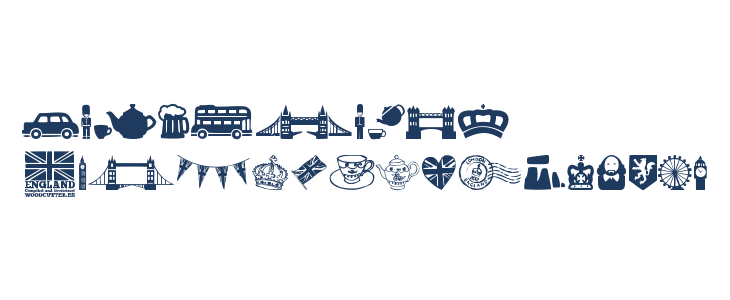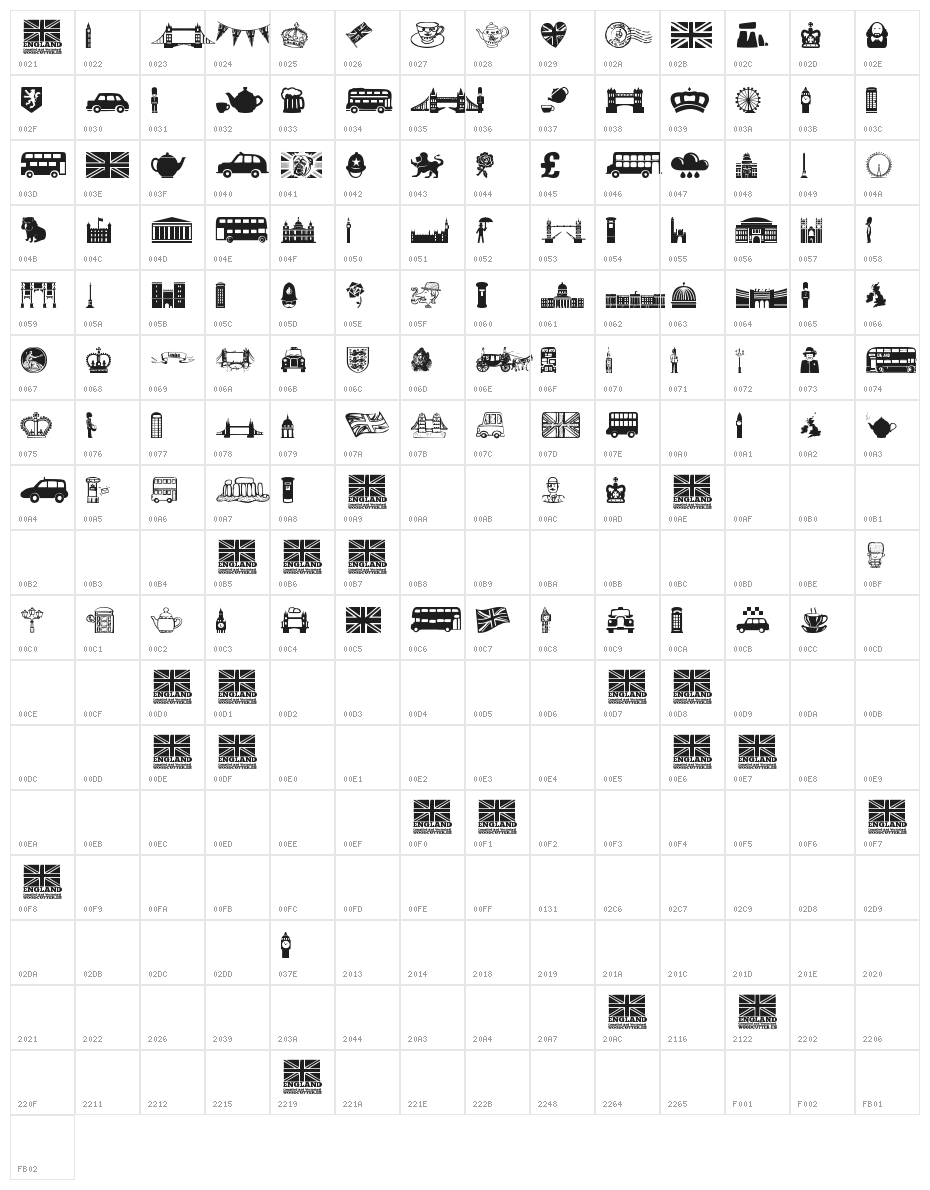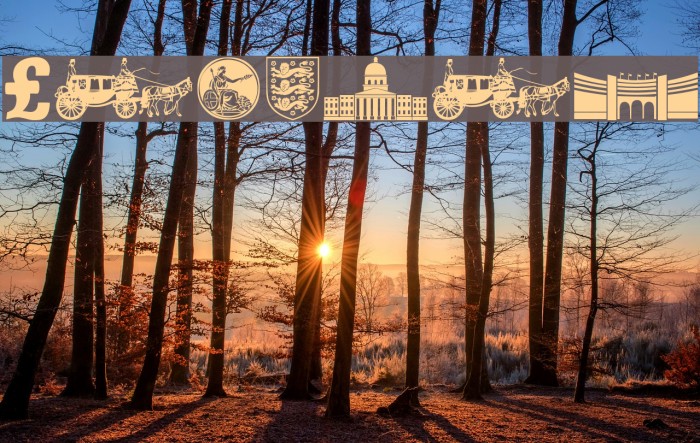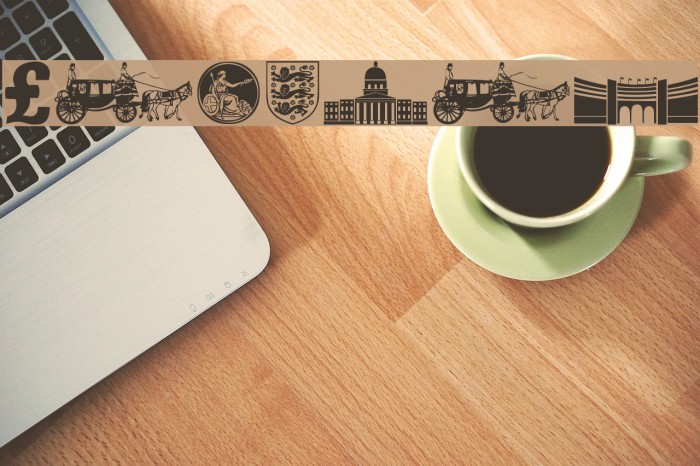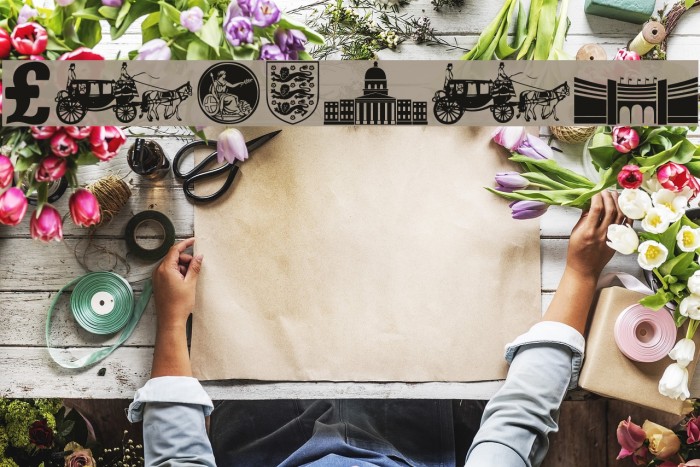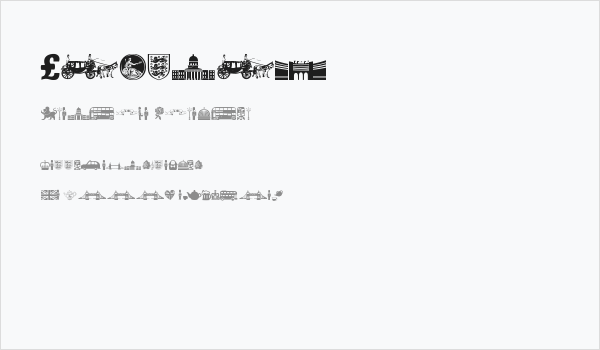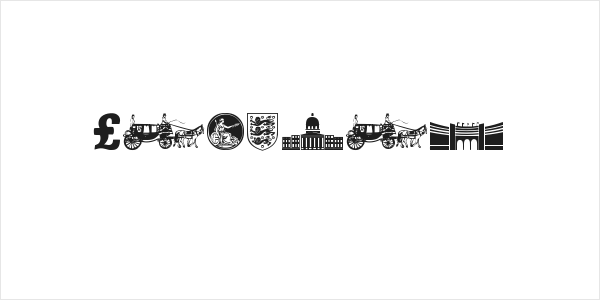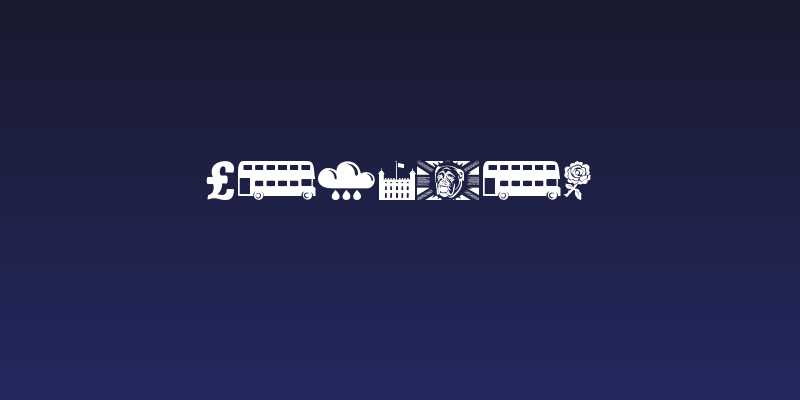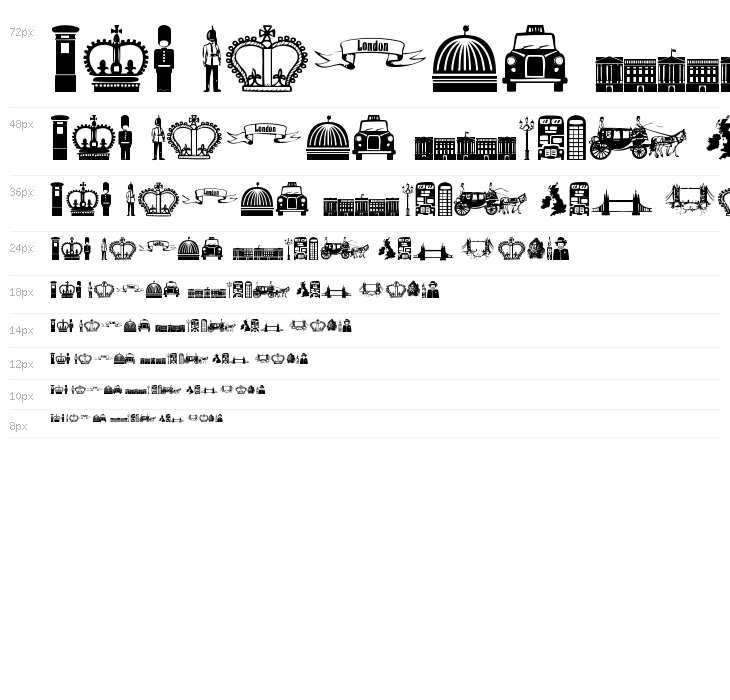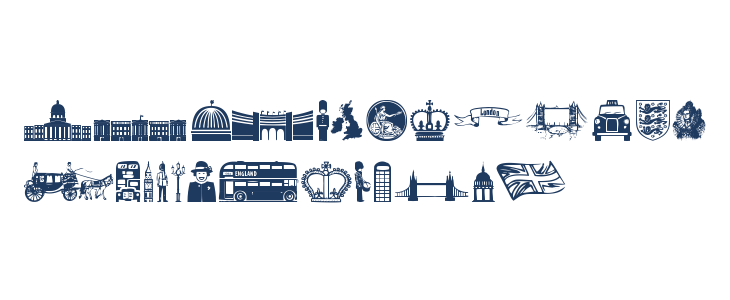
England Font
England Description
This collection features a series of iconic symbols and landmarks associated with England, presented in a bold and illustrative style. The designs include famous elements such as the double-decker bus, Big Ben, the London Eye, and the Union Jack. Each symbol is rendered in a silhouette form, providing a clean and recognizable appearance. The set captures the essence of English culture and history, making it ideal for projects that aim to evoke a sense of British identity. The use of solid black shapes ensures high contrast and visibility, suitable for various design applications.
| Use Case | Logos, Posters, Merchandise |
| Proposed Projects | Ideal for travel brochures, educational materials, themed merchandise, and cultural exhibitions. |